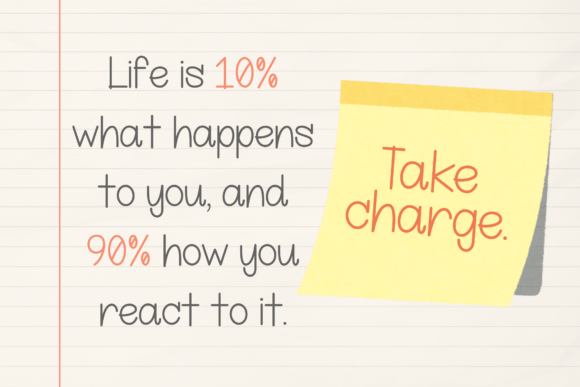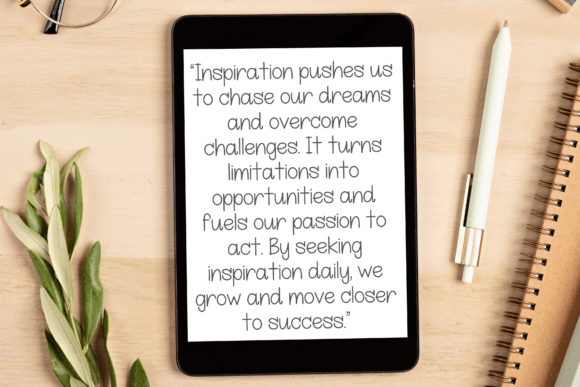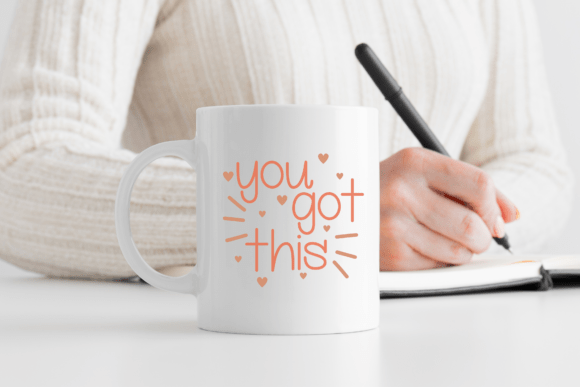
Introduction to Lovely Ingrid Font
Add a friendly and neat touch to your everyday designs with Lovely Ingrid, a casual handwritten font designed to give your text a clean yet personal feel.
Featuring a beautifully tall and highly legible structure, this versatile typeface is perfect for typing out long, inspiring quotes, organizing your digital planners, and creating cute personalized merchandise like mugs Lovely Ingrid comes as a professional standard set, including uppercase and lowercase letters, numbers, punctuation, and full multilingual support, bringing a polished and authentic hand-crafted vibe to all your creative projects.
Key Features of Lovely Ingrid Font
Why Choose Lovely Ingrid Font?